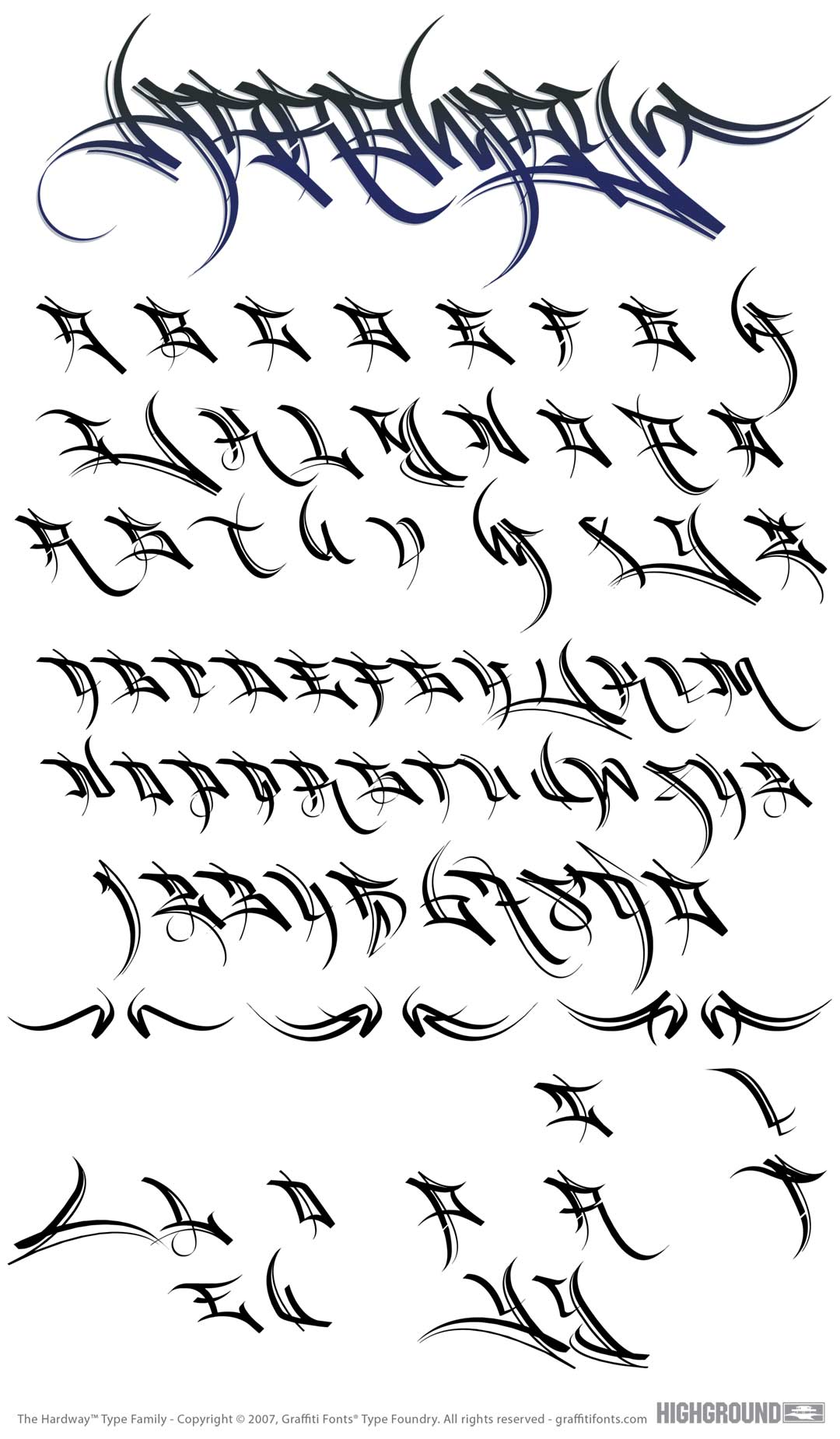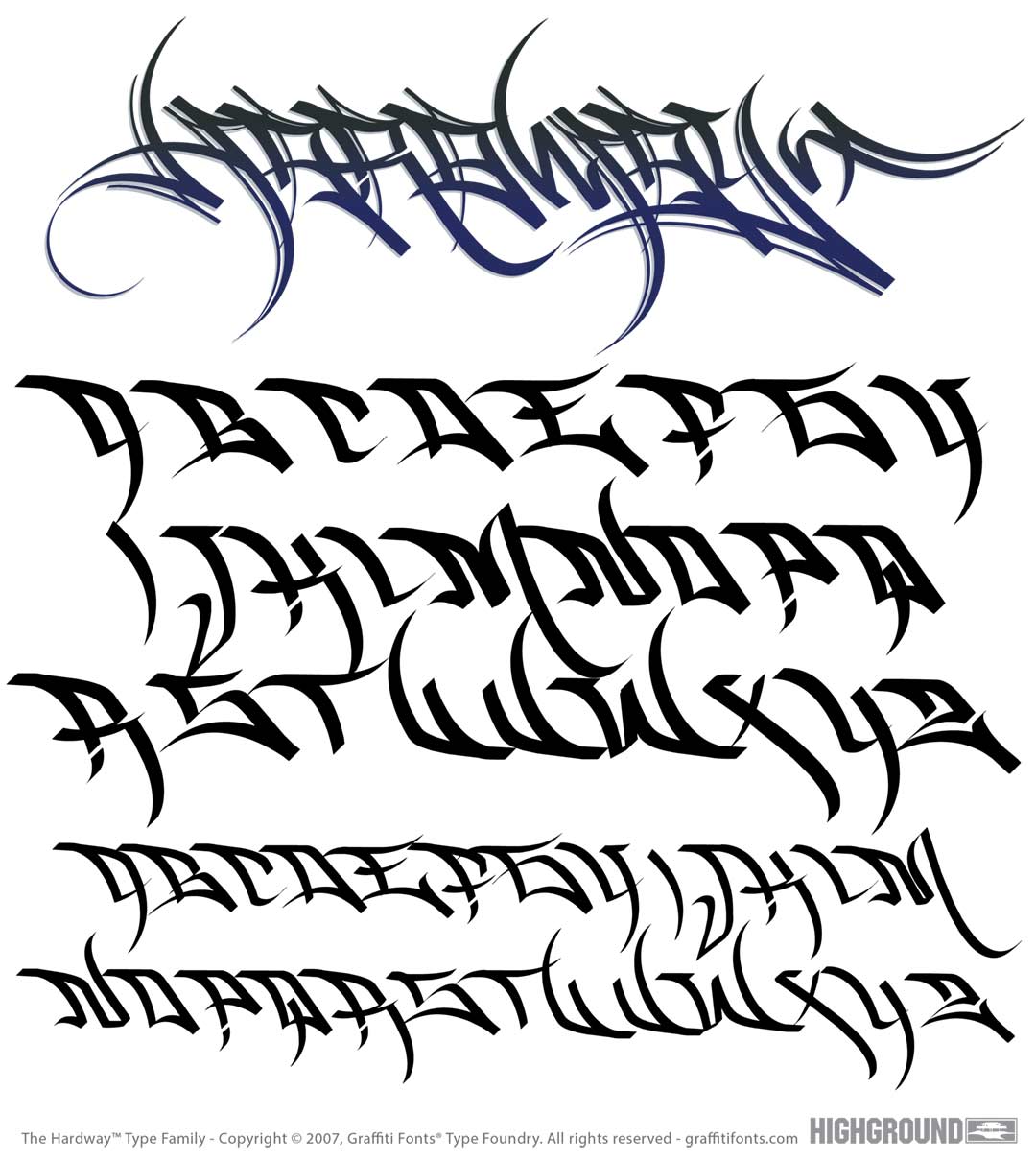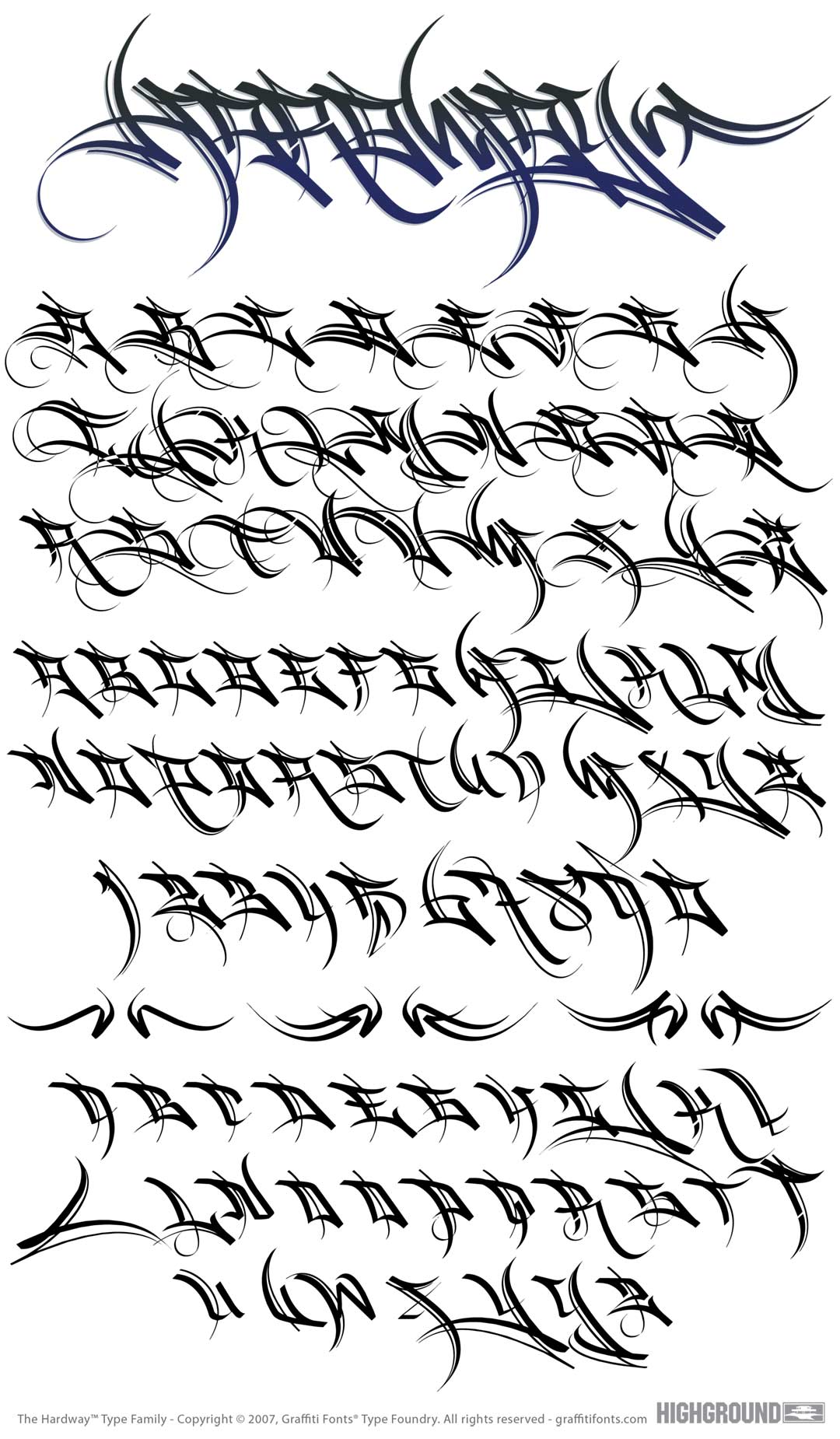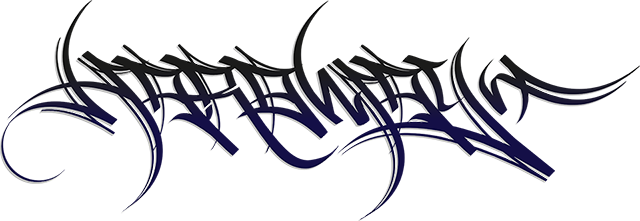
HardWay Font
HardWay Title Image
HardWay Graffiti Alphabet
HardWay Graffiti Font Family
Hardway comes with 4 unique styles. Each style contains 2 unique alphabets and varying numbers of alternate letters as well as a full compliment of numbers, flourishes, symbols etc.. This family was created by applying classic calligraphic technique to modern graffiti letterforms. Each style varies in complexity. The "caps" style for example features large, dramatic flourishes on the left side and includes a total of 125 characters. The regular style includes 98 characters, "flat" has 84 characters & "basic" has 61 characters.